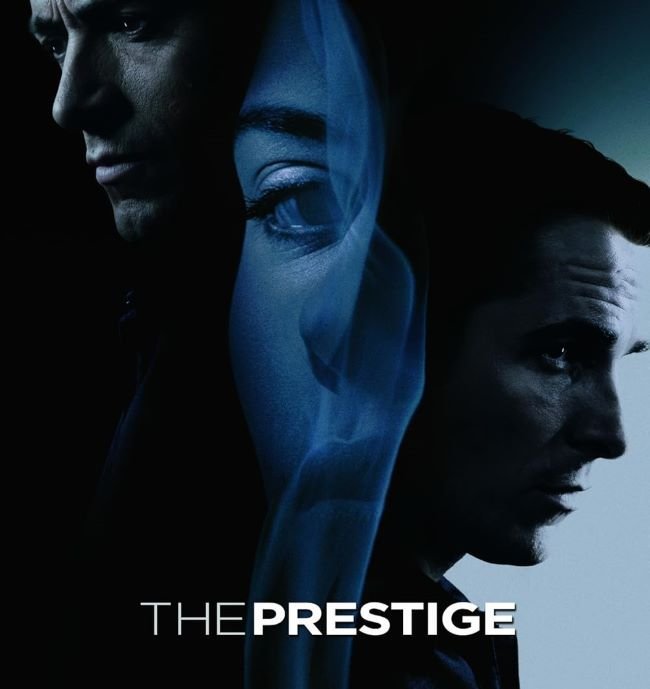
The Prestige font operates on the same principle as the film itself — it holds your attention without revealing its hand. Christopher Nolan’s 2006 study of obsession and illusion demanded title typography that felt theatrical yet precise, mysterious yet controlled. The freely available Homepage Baukasten Bold captures a similar spirit — a typeface with enough structural confidence to carry dramatic weight while keeping an air of deliberate restraint that suits a film built entirely on concealment.
For designers, it’s a reliable choice when the brief calls for sophisticated drama without overstatement — book covers with a gothic edge, theatrical event posters, escape room branding, or any creative project that needs to feel like there’s more going on beneath the surface than what’s immediately visible. Like the best stage magic, the most effective typography leaves the audience intrigued rather than explained to.